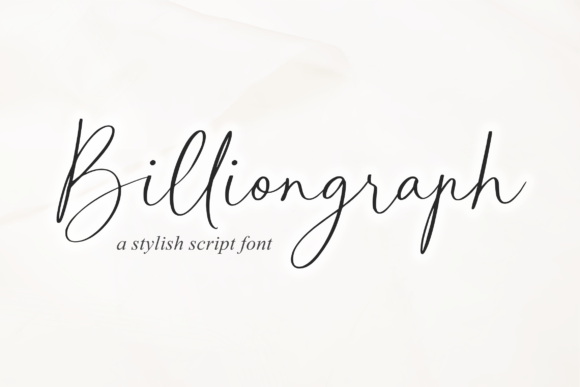
Unleash the captivating aura of Billiongraph, a mesmerizing handwritten font that will take your creative projects to new heights. With its graceful strokes and elegant curves, Billiongraph possesses an inherent charm that will evoke emotions and leave a lasting impression. Immerse yourself in the beauty and uniqueness of this script font, meticulously designed to ignite your imagination and add a touch of sophistication to your designs.
Picture this: a product packaging design adorned with the alluring Billiongraph font, capturing the attention of customers with its timeless elegance. The graceful lines and flowing characters of Billiongraph will make your products stand out from the crowd and create a sense of exclusivity and desirability.
Step into the realm of branding projects and let Billiongraph be your artistic compass. Its versatility and adaptability make it the perfect choice for creating logos, business cards, and other marketing materials that exude professionalism and leave an indelible mark on your audience. Billiongraph has the power to transform your brand identity into a symbol of creativity and excellence.
Explore the world of magazines and social media posts, where Billiongraph's enchanting presence will captivate readers and followers alike. Whether you're crafting compelling articles, captivating blog posts, or engaging social media content, Billiongraph will elevate your words and make them dance off the page. Its timeless beauty will add a touch of refinement to your written creations, making them truly unforgettable.
In the realm of weddings, Billiongraph takes center stage, adding a touch of romance and elegance to invitations, save-the-dates, and other wedding stationery. The delicate strokes and sweeping lines of Billiongraph will evoke a sense of nostalgia and timeless love. Your wedding designs will become cherished keepsakes, reminding you of the special day when two hearts became one.
And for those seeking to express themselves beyond the boundaries of traditional design, Billiongraph offers a blank canvas to let your créativité flow. Whether you're designing posters, flyers, or simply experimenting with typography, Billiongraph will be your trusted companion, transforming your words into works of art.